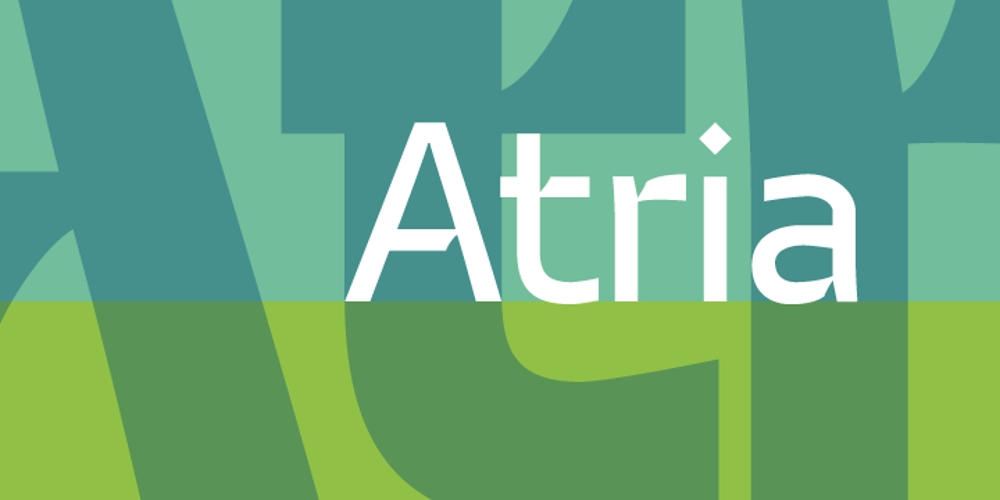
Atria Font Family was designed by Nicholas Garner and published by AVP. Atria contains 4 styles and family package options. A modern sans-serif, Atria is pinched at the junction of certain strokes, providing a distinctive appearance and aiding screen definition at small sizes. The glyphs cover Baltic languages and Cyrillic.